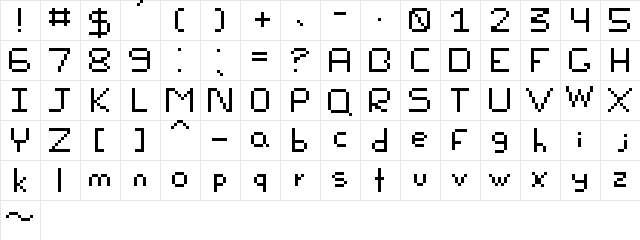
Sield Regular
| Designer | SuperSonic136 |
Design Context for Sield Typeface
Sield is a composed and adaptable typeface that performs quietly and consistently across a wide range of design contexts.